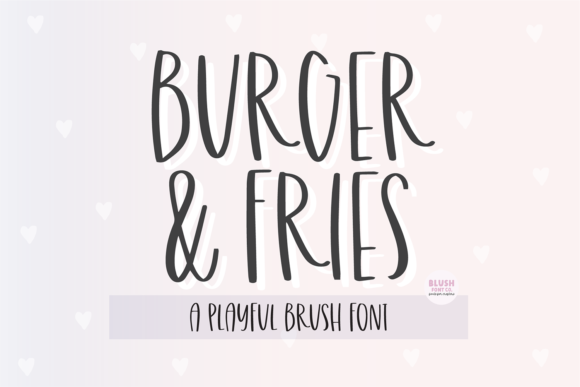
Burger and Fries is a clean and casual handwritten font. It can easily be matched to an incredibly large set of projects, so add it to your creative ideas and notice how it makes them stand out!
Burger and Fries Font